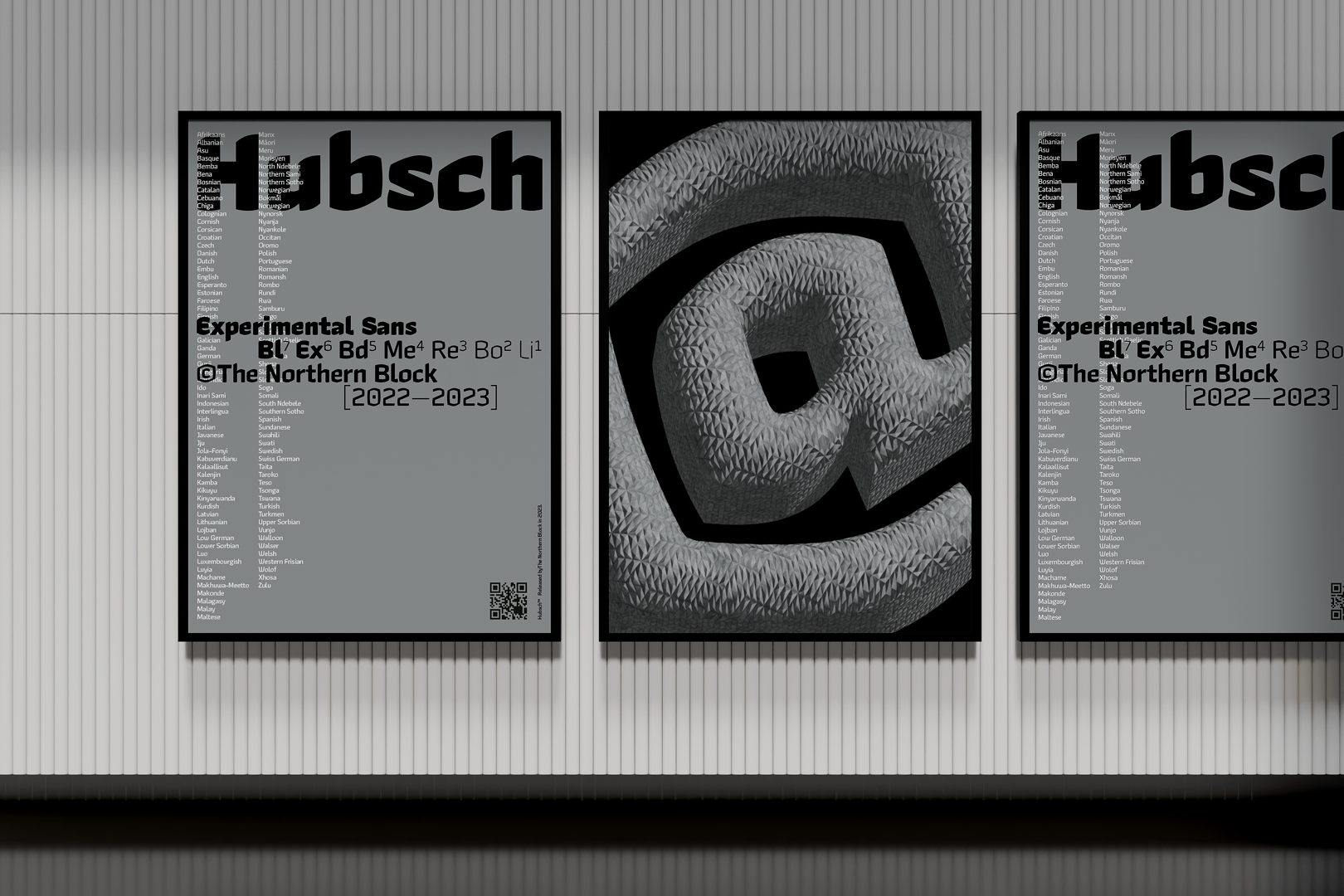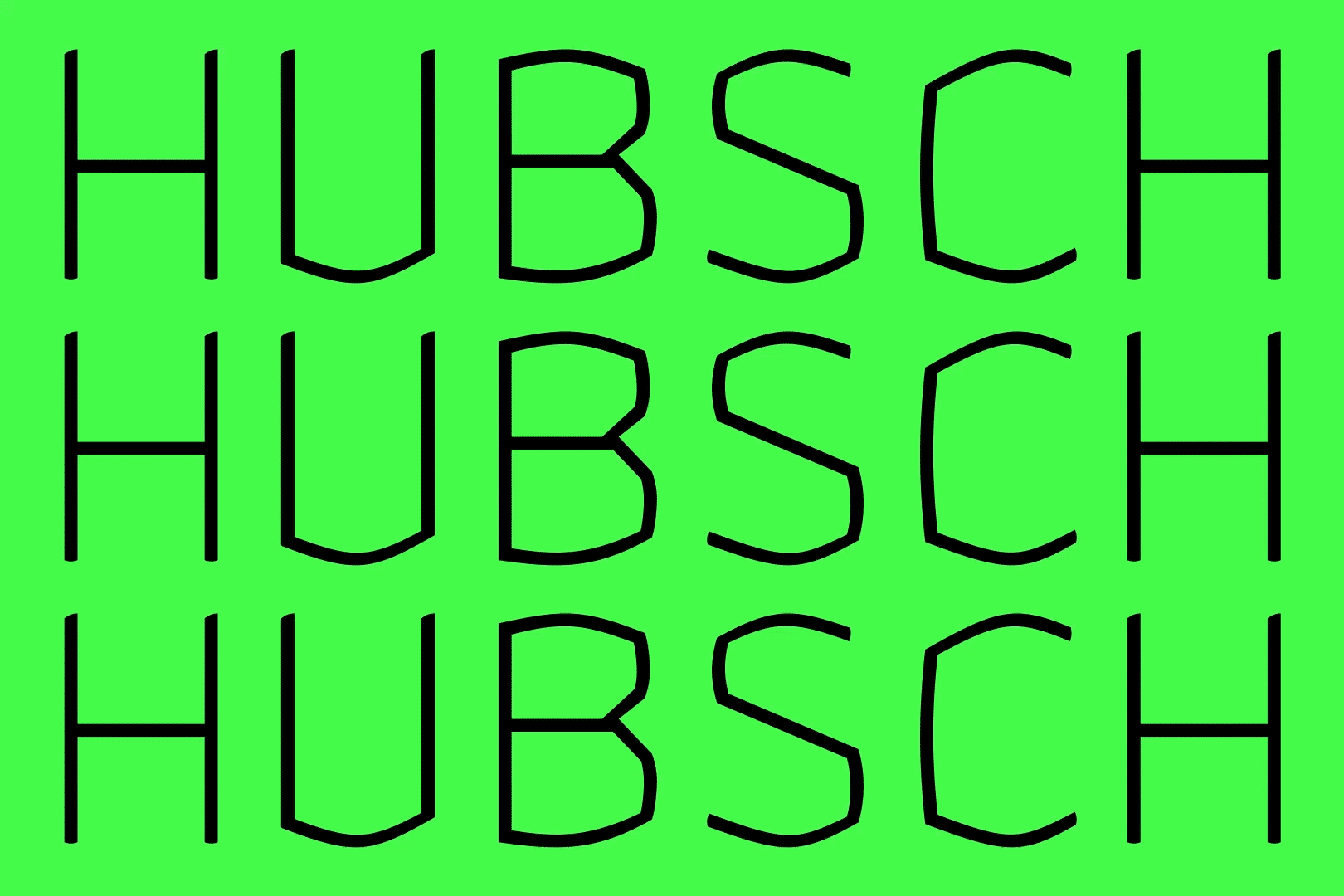
Hubsch is an experimental sans-serif that follows the drawing principles of a chisel-tipped marker pen where sharp angles meet flowing curves in a balance between thick and thin strokes. The result is a distinctive, brutalist typeface that copes well in both small and large-scale situations such as video games, mobile applications, architecture, sports venues, and arenas.
The font includes seven weights with obliques and over 600 characters per style. OpenType features consist of ten number variations, including inferiors, superiors, fractions, lining, tabular, oldstyle, and case-sensitive. It also has ten stylistic sets, standard ligatures, slashed zero, and language support covering Western, Southern, and Central Europe.